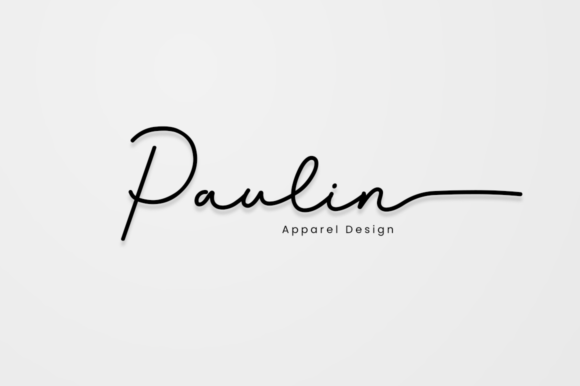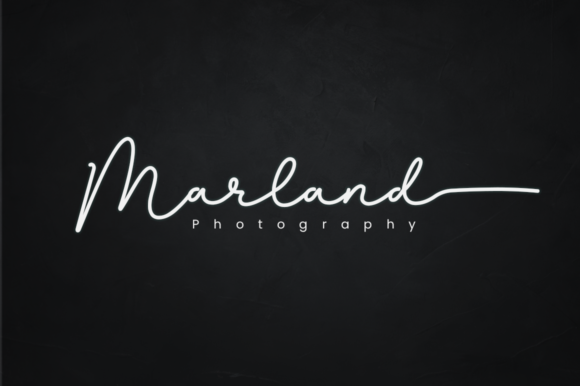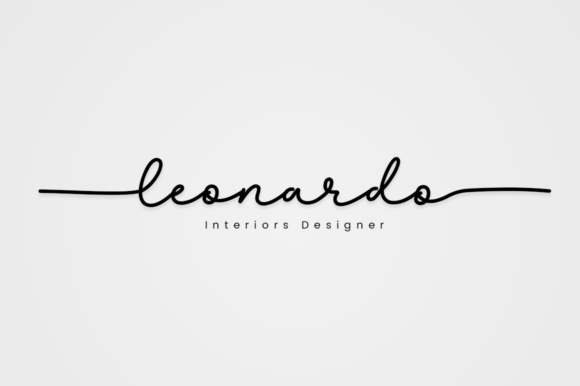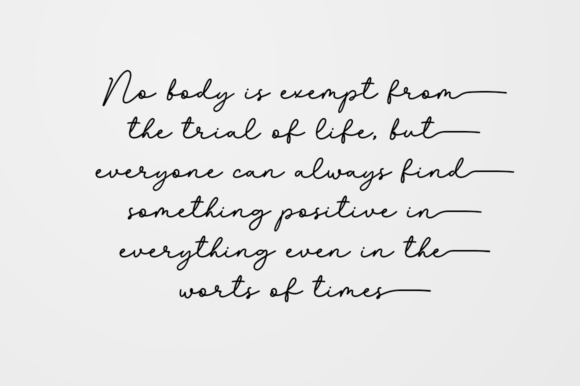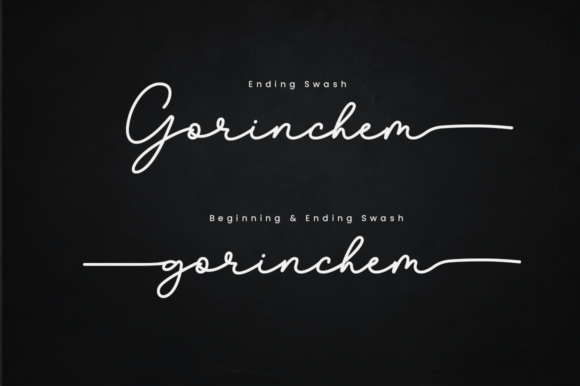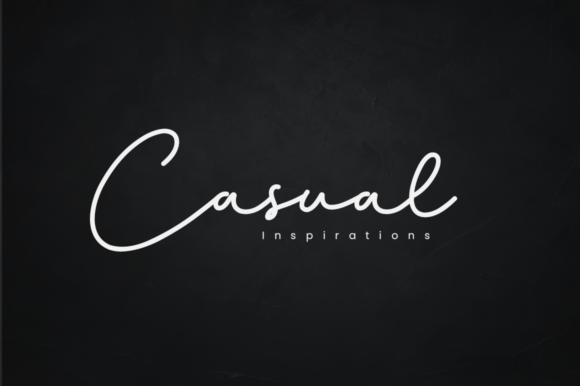
Introduction to Gorinchem Font
Gorinchem is an elegant handwritten font.
Get inspired by its unique look and create cute wedding invitations, amazing greeting cards and eye-catching social media posts This font is PUA encoded which means you can access all of the glyphs and swashes with ease.
Key Features of Gorinchem Font